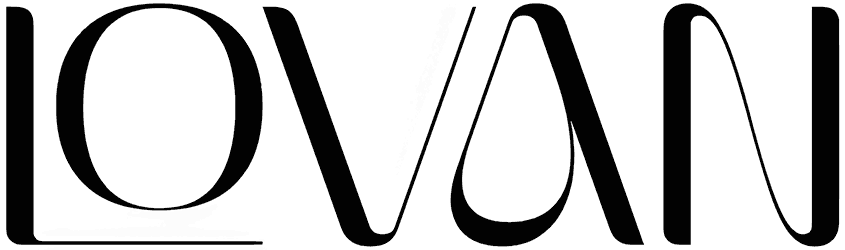
Lovan Font
Let’s make sure you’re not going to be stuck looking for a modern font next time you have a logo to design. Lovan and its unique style make it easier than ever to find exactly what you have in mind.
As a luxury font, it can speak for your brand and its innovative approaches. You have every right to use it on your fashion products, magazine covers, and again on your business card for wedding planning, graphic design, and other related services.